1. Introduction
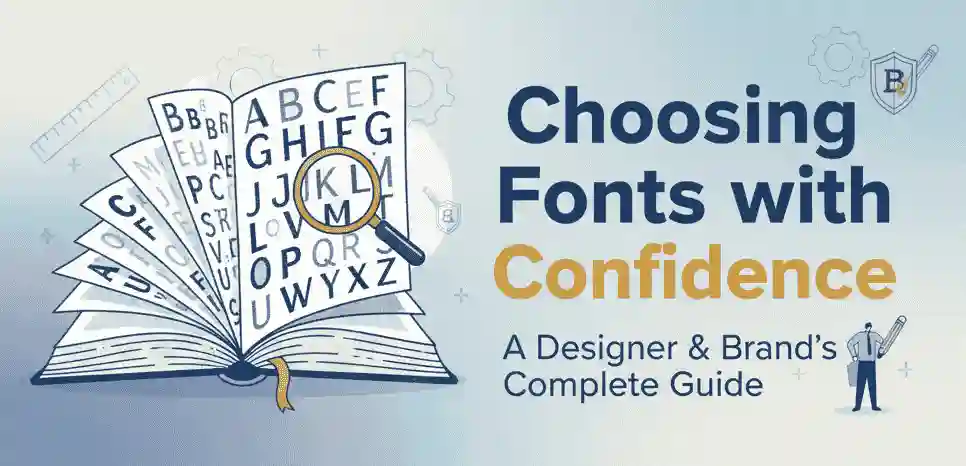
Typography is more than just textโit is the visual voice of your brand. Choosing the right font can elevate your design, capture attention, and communicate your message effectively. However, with thousands of fonts available, the question arises: how to choose a font that perfectly aligns with your design goals?
This guide will walk you through everything you need to know about font selection, supported with expert insights and professional font recommendations from EdricStudio.
2. Why Choosing the Right Font Matters
A well-chosen font enhances brand identity, improves readability, and helps build emotional connections with your audience. According to Smashing Magazine, typography significantly influences user experience and brand trust.
The wrong choice can make a website look unprofessional, a logo less memorable, or marketing materials confusing.
3. Key Factors to Consider When Choosing a Font
a. Readability & Legibility
The font must be easy to read across devices. Clean sans-serif fonts such as Montserrat or Raleway work well for body text.
b. Brand Personality & Tone
Your font should reflect your brandโs character. For example:
- A luxury brand may use elegant serif fonts.
- A tech startup may prefer minimal sans-serif fonts.
- A kidsโ brand may opt for playful display fonts.
c. Versatility & Usability
Choose a font that works across print, digital, and social platforms. A versatile typeface ensures consistency.
d. Emotional Impact of Typography
Fonts trigger emotions. Rounded fonts feel friendly, while sharp, geometric fonts convey professionalism.
e. Font Pairing Techniques
Good typography often requires mixing fonts. Pair a serif for headings with a sans-serif for body text to create hierarchy.
4. Common Mistakes to Avoid in Font Selection
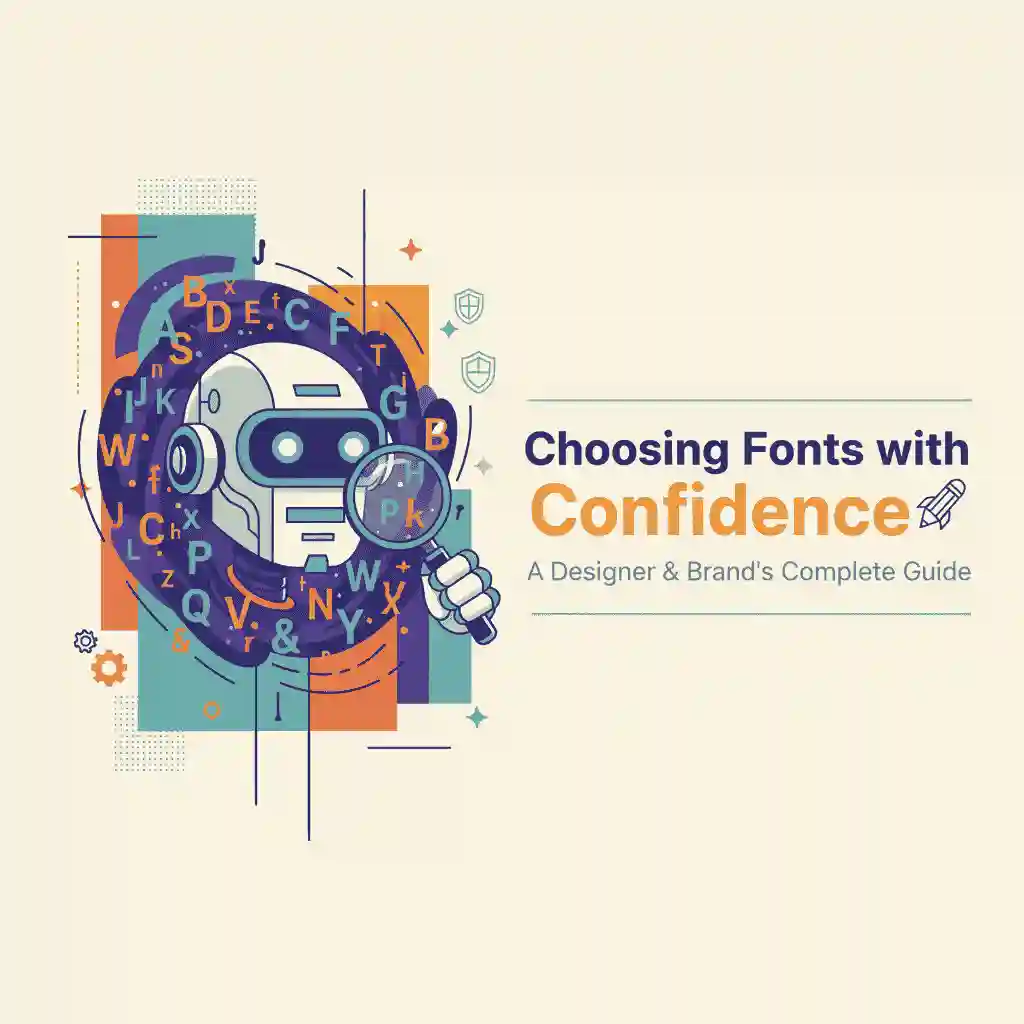
- Using too many fonts in one design.
- Choosing fonts based only on trends.
- Ignoring spacing, weight, and contrast.
- Forgetting about mobile readability.
5. Best Practices for Selecting Fonts for Different Purposes
Fonts for Websites
Web typography should focus on readability and loading speed. Google Fonts and optimized premium fonts are excellent choices.
Fonts for Logos & Branding
Logos need fonts that are unique, bold, and memorable. Serif and display fonts are great options here.
Fonts for Marketing Materials
Marketing designs require fonts that grab attention quickly. Bold sans serifs or stylish scripts are popular.
Fonts for Social Media Graphics
Social media thrives on eye-catching typography. Use fonts that are playful yet clear at smaller sizes.
6. Recommended Professional Fonts You Can Use
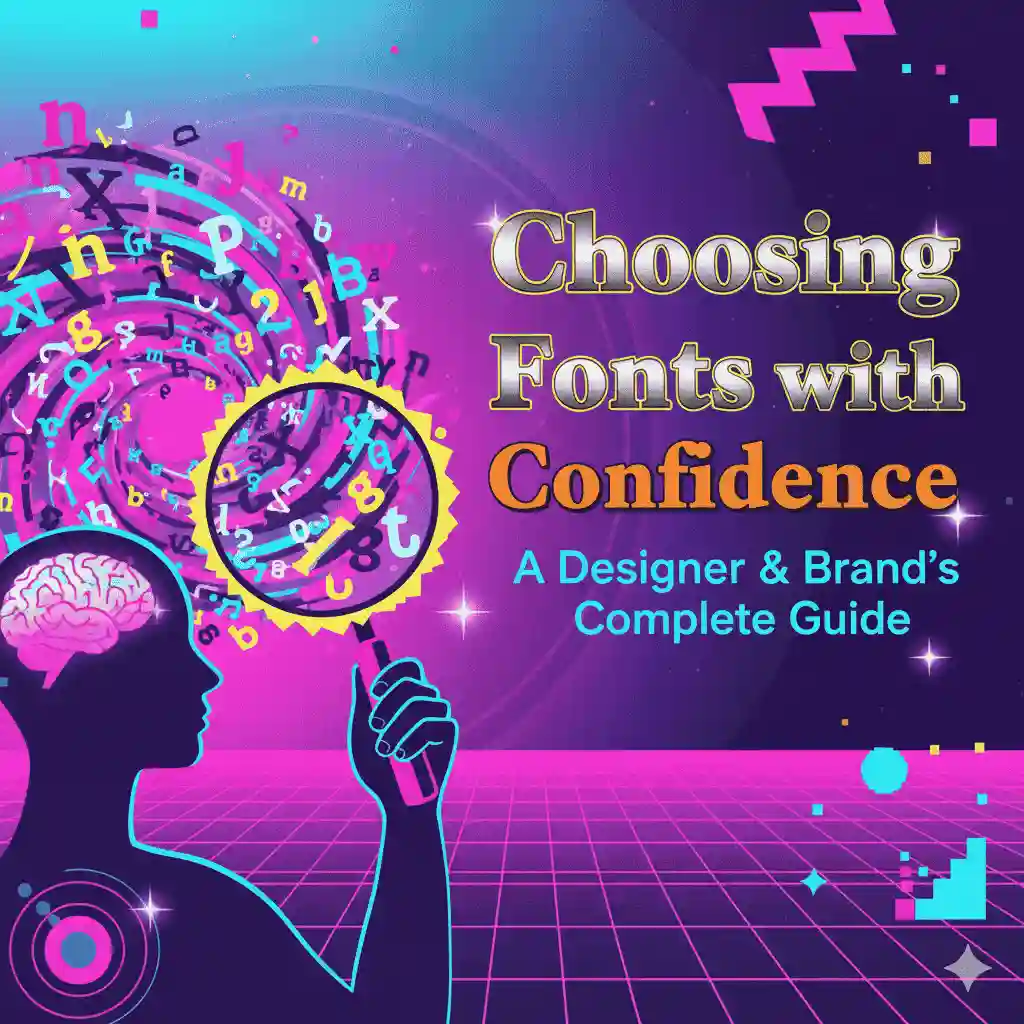
7. Conclusion
Choosing the right font is both an art and a science. By considering readability, brand personality, emotional resonance, and versatility, you can select typefaces that strengthen your brand identity and captivate your audience.
Whether youโre working on a website, logo, or social media post, remember: typography is your silent ambassador. Invest in high-quality fonts to make your message stand out.